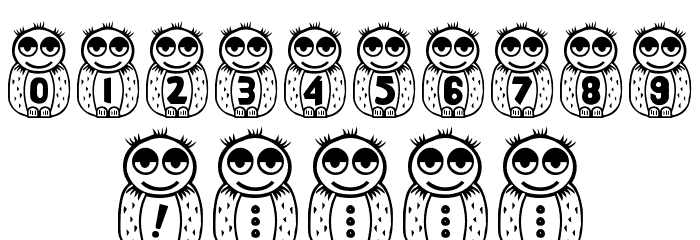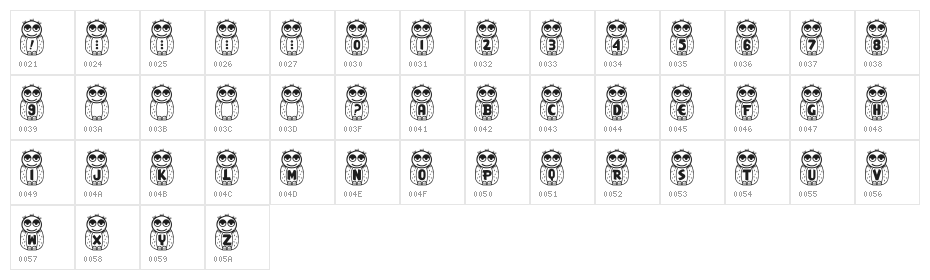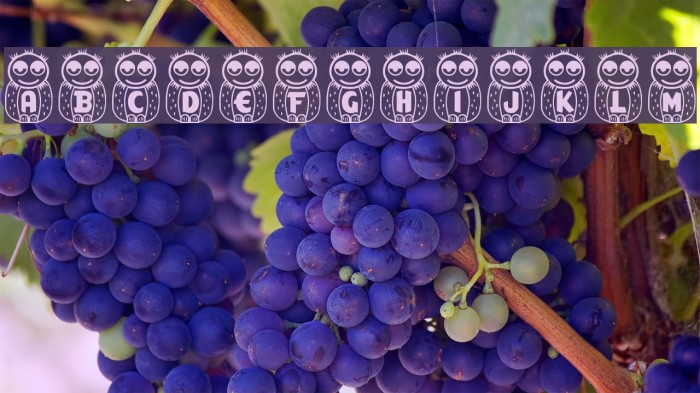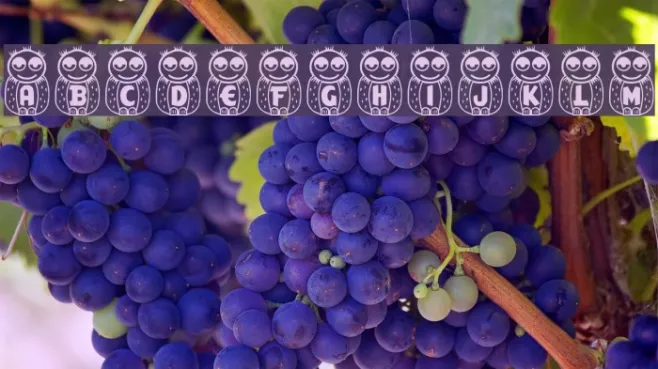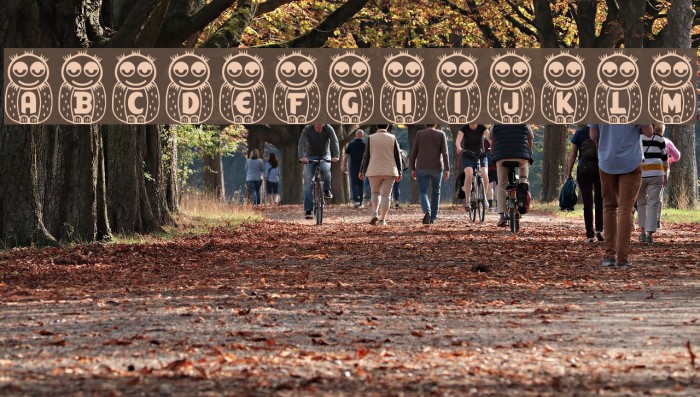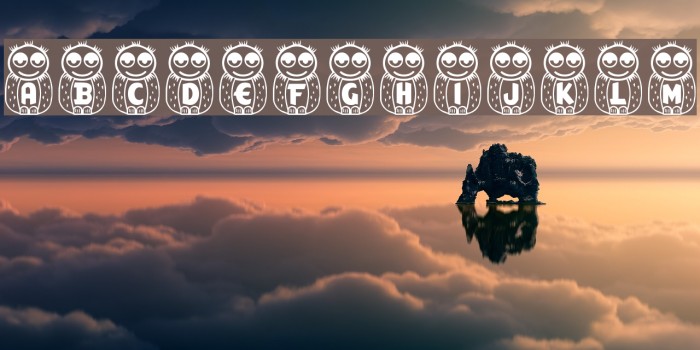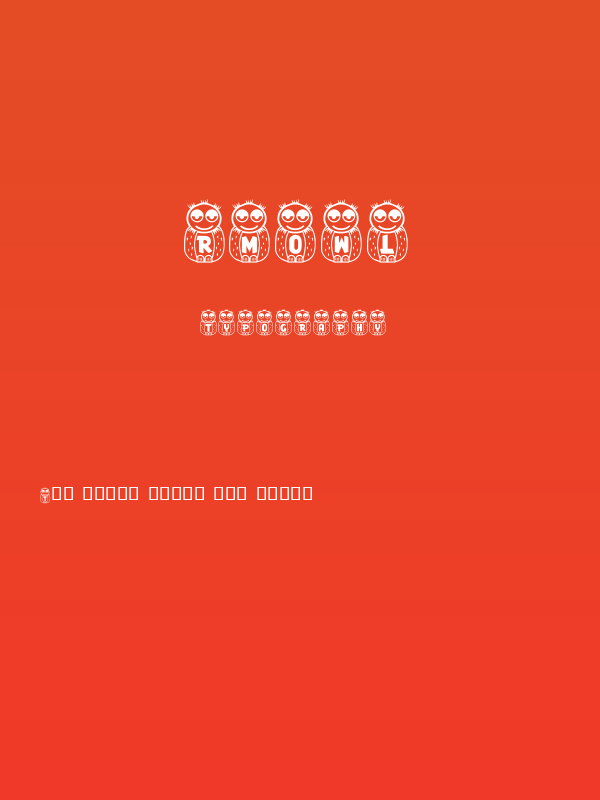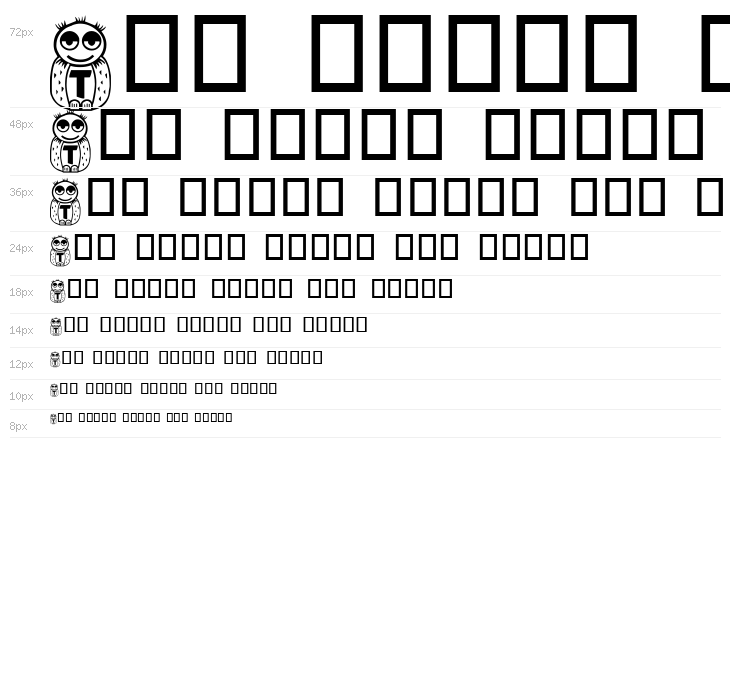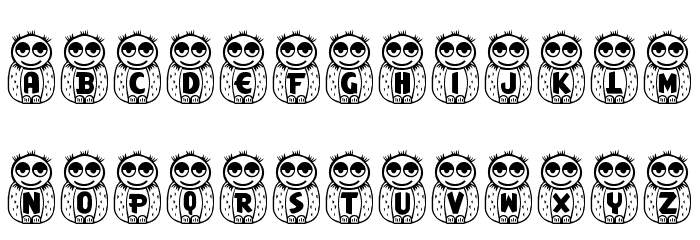
RMOwl Font
RMOwl Description
This playful and whimsical font features each character encased within a cartoonish owl design. The letters and numbers are bold and clear, making them easily readable despite the decorative nature of the font. Each owl character is distinct, with expressive eyes and a rounded body, adding a unique charm to the text. The font is perfect for projects that require a fun and engaging visual element, such as children's books, educational materials, or playful branding. The consistent style across all characters ensures a cohesive look, while the detailed owl illustrations provide an eye-catching and memorable design.
| Use Case | Headlines, Logos, Creative Invitations |
| Proposed Projects | Ideal for children's books, educational materials, playful branding, and creative invitations. |